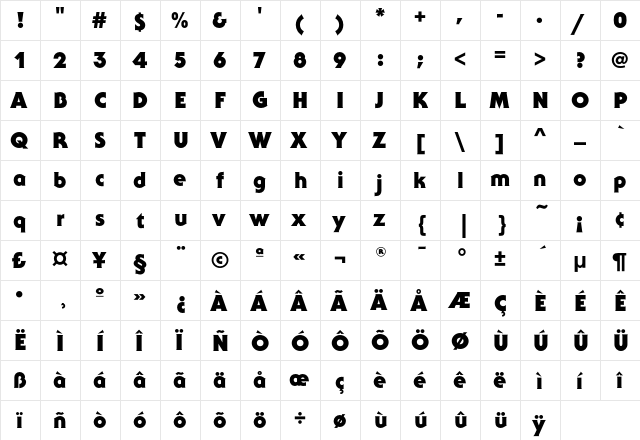
SerifGothicEF-Black Regular
Design Context for SerifGothicEF-Black Typeface
SerifGothicEF-Black brings classic typographic sensibility to the table — its serifs and measured letterforms reflect centuries of print heritage.
Pro Tip: Use SerifGothicEF-Black for editorial body copy and considered headline work. Pair with a neutral sans for UI elements or captions to create a classic hierarchy.